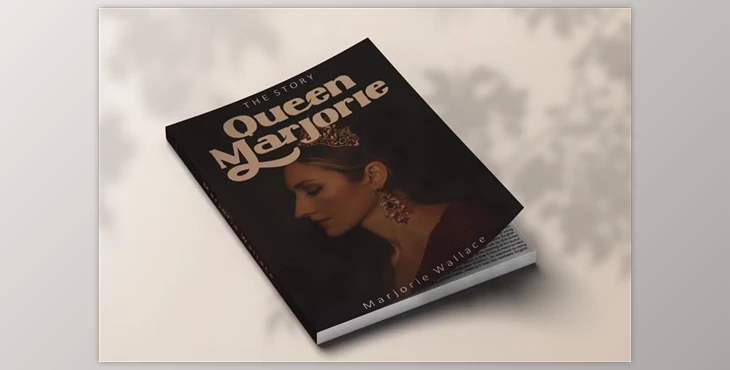
Heathfield Vintage Bold Serif Font offers a blend of strength and vintage charm with distinctive characters and soft features.
This font package includes Swash, Stylistic, and Titling alternatives, along with ligatures and standard characters for creating diverse designs.
Compatible with various design software and supporting multiple languages, Heathfield is ideal for logos, branding, quotes, and various design projects, adding a retro touch to modern creations.